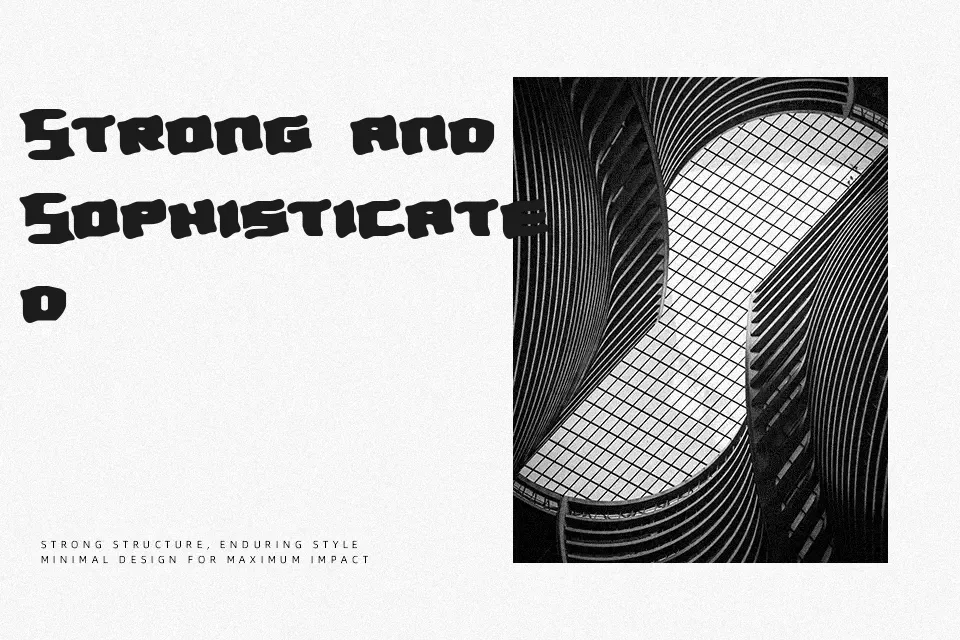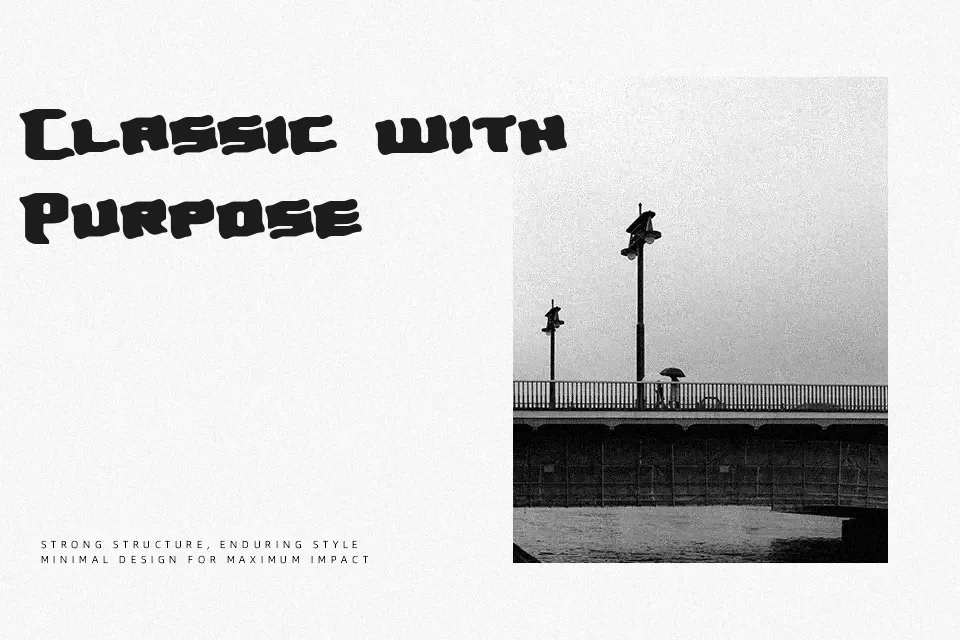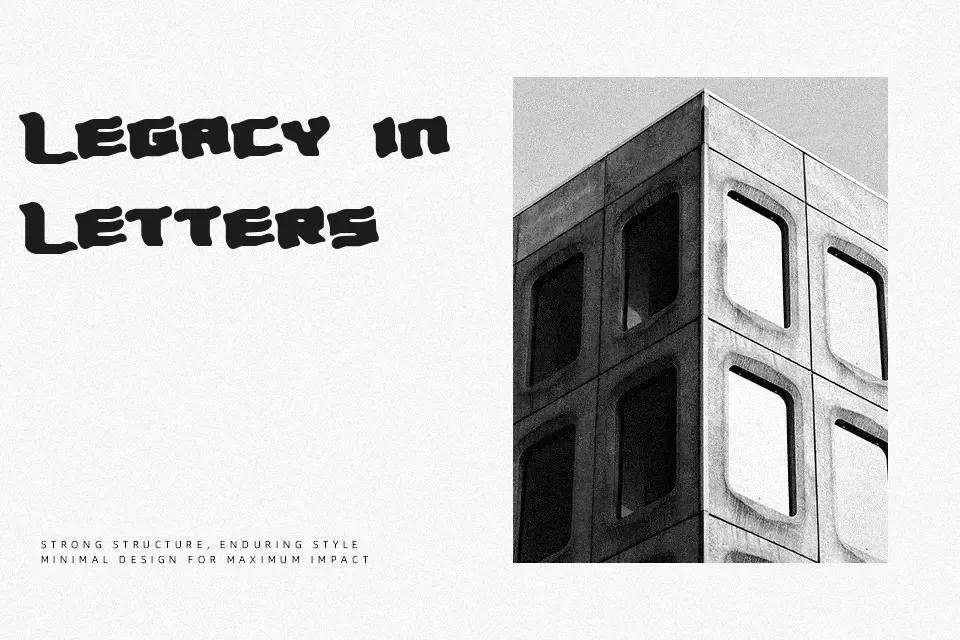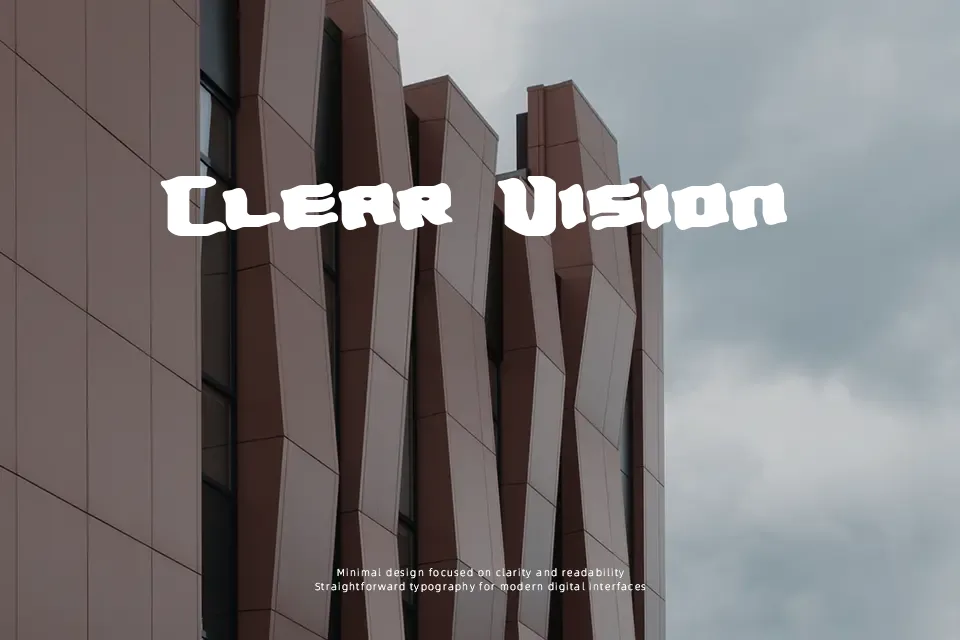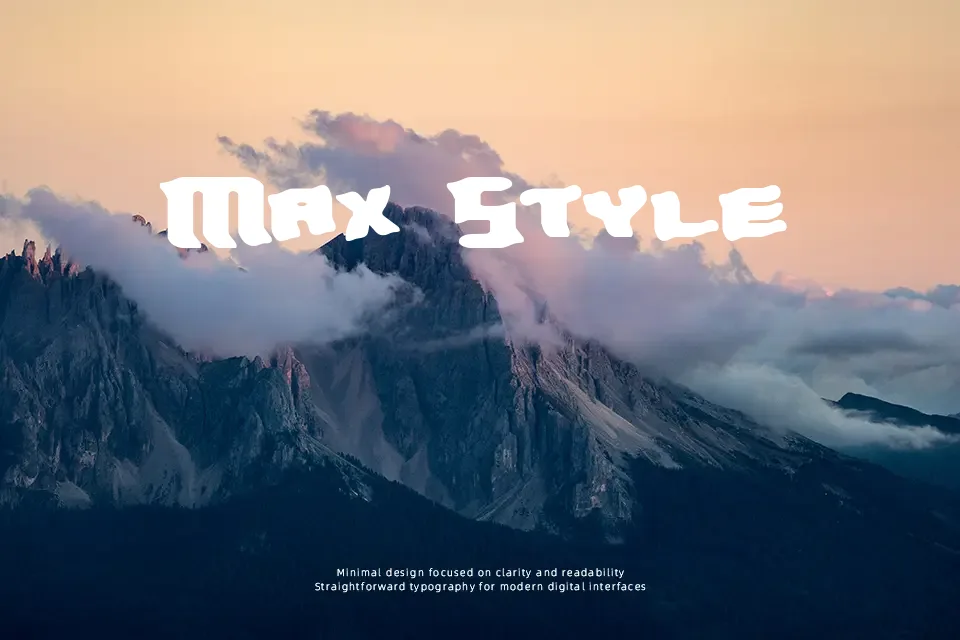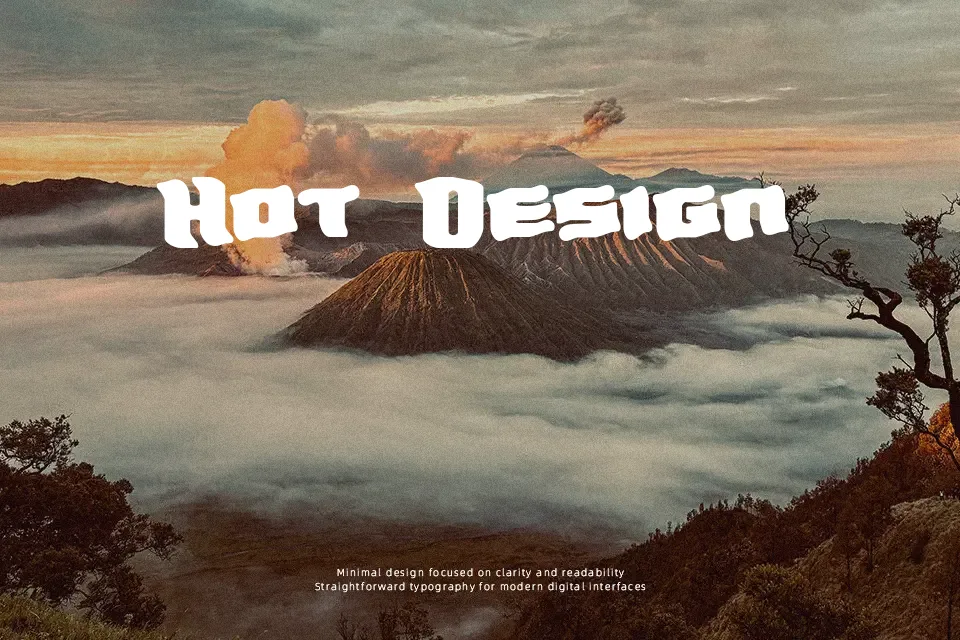
Turmoil BRK Font
Defined by rugged silhouettes and uneven contours, Turmoil BRK Font delivers an abrasive aesthetic that commands visual priority across striking graphic layouts. The design employs chunky, irregular strokes paired with compact vertical proportions, creating dense letterforms with rough outlines. Tight horizontal spacing packs the characters closely together, generating a chaotic visual rhythm that suits aggressive band merchandise, skate apparel graphics, and horror media headlines. However, this heavy visual disruption severely restricts legibility at small sizes, making continuous reading virtually impossible. The typeface performs effectively in massive display compositions, but it remains impractical for paragraph copy, corporate publications, or detailed technical interfaces.
Best For: punk band posters, skate apparel graphics, horror video game titles, extreme sports packaging
Not Ideal For: long paragraph text, corporate annual reports, mobile app interface labels, editorial body copy
Perfect for gaming, headline, and music, with a bold and decorative style.